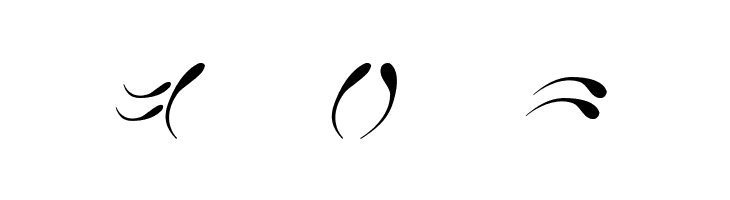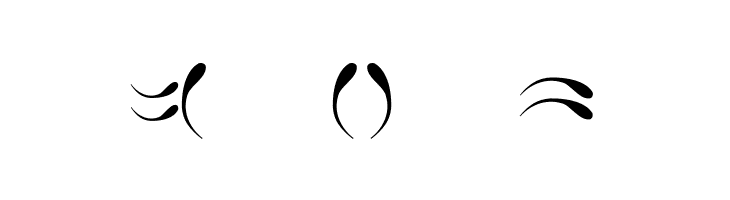
Junari ClawsRegular Font
An artistic and abstract font with claw-like strokes and fluid shapes.
Junari Claws Italic Font
A decorative, abstract font with claw-like, sweeping strokes and dynamic curves.